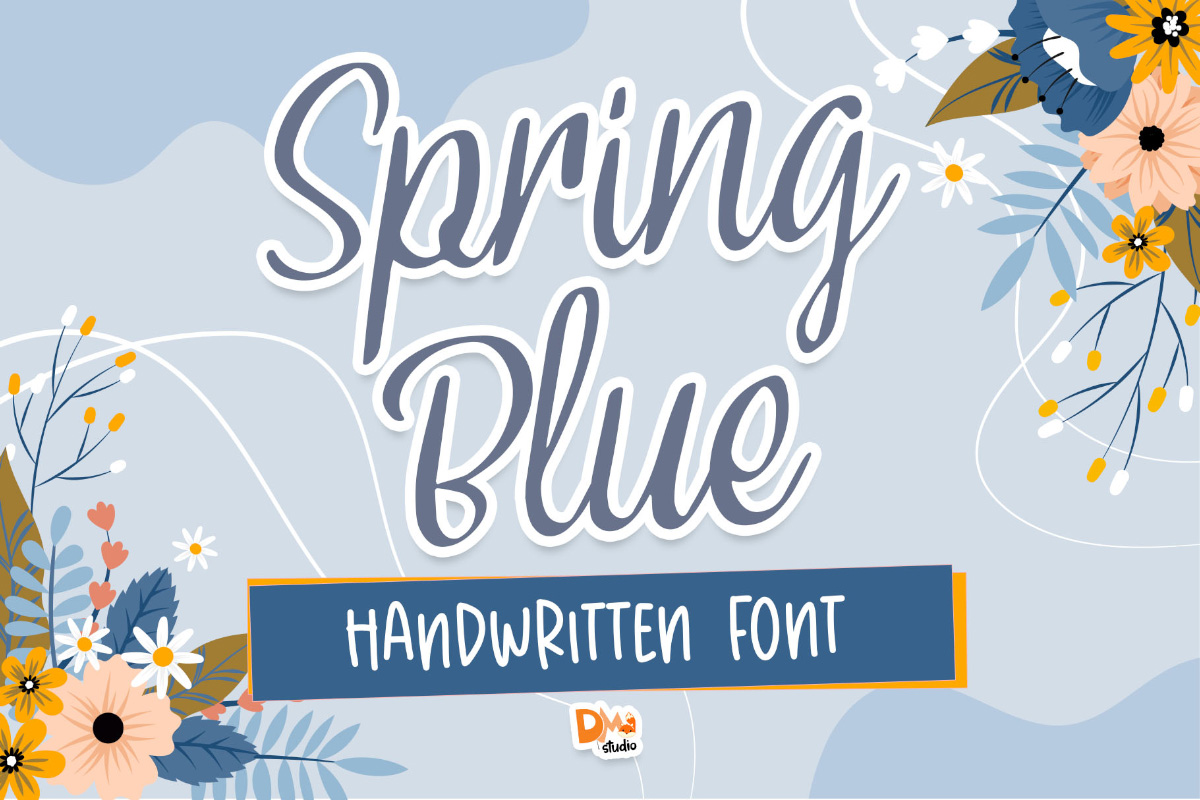
30+ Flower Font Recommendations to Enhance Your Design Projects
If you’re looking to add a touch of nature and beauty to your designs, flower fonts are a perfect choice. Therefore, in this article, we’ll share over 30 flower font recommendations that will bring a fresh and elegant look to your projects. Find each of them in the following chapter!
31 Flower Font Recommendations for Any Usages
Whether you’re designing invitations, posters, or digital artwork, these flower fonts will help you create stunning and eye-catching designs with ease. Scroll down to get inspired!
1. Flower Bee
Flower Bee Font
Flower Bee Font | Image Source : DM Letter Studio
First, there’s Flower Bee that blends floral elements with playful bees. It’s perfect for cheerful and lively designs.
2. Spring Baby
Spring Baby Font
Spring Baby Font | Image Source : DM Letter Studio
Spring Baby Font adds a gentle touch with its floral motifs and is ideal for baby shower invitations.
3. Baby Tulips
Baby Tulips Font
Baby Tulips Font | Image Source : DM Letter Studio
Featuring cute tulip designs, this font is great for spring-themed projects and children’s decor.
4. Tropic Garden
Tropic Garden Font
Tropic Garden Font | Image Source : DM Letter Studio
Another flower font that must be on the list is Tropic Garden font which brings tropical flowers to life and is a good choice for summer events and exotic design themes.
5. Pink Garden
Pink Garden Flower Font
Pink Garden Flower Font | Image Source : DM Letter Studio
Pink Garden Font offers delicate flower designs that add a feminine and romantic feel to any project.
6. Goldy Boldy
Goldy Boldy Font
Goldy Boldy Font | Image Source : DM Letter Studio
This bold font with floral accents is excellent for making headlines stand out in stylish designs.
7. Goldy Burst
Goldy Burst Font
Goldy Burst Font | Image Source : DM Letter Studio
Goldy Burst combines floral bursts with a modern look that is suitable for eye-catching advertisements.
8. Letter Magic
Letter Magic Font
Letter Magic Font | Image Source : DM Letter Studio
Letter Magic Font includes whimsical flower designs that are perfect for creative projects and artistic logos.
9. Sunday Feast
Sunday Feast Font
Sunday Feast Font | Image Source : DM Letter Studio
With elegant floral touches, Sunday Feast Font is perfect for designs for invitations and event announcements.
10. Pink Daisy
Pink Daisy Handwriting Flower Font
Pink Daisy Handwriting Flower Font | Image Source: DM Letter Studio
Pink Daisy Font features charming daisy motifs that are great for cheerful and lighthearted design projects.
11. Spring Blue
Spring Blue Font
Spring Blue Font | Image Source: DM Letter Studio
Spring Blue Font combines cool tones and flower designs for refreshing spring-themed visuals.
12. Little Daisy
Little Daisy Font
Little Daisy Font | Image Source: DM Letter Studio
Another beautiful flower font is Little Daisy Font. It is sweet and simple for children’s books and playful designs.
13. Pink Shine
Pink Shine Font
Pink Shine Font | Image Source: DM Letter Studio
Want to add a touch of contemporary flair to any design? Pink Shine Font sparkles with high contrast letter strokes can do it.
14. Garden Flower
Garden Flower Cute Font
Garden Flower Cute Font | Image Source: DM Letter Studio
Garden Flower Cute Floral Font brings the beauty of a blooming garden to your text for natural themes.
15. Love Days
Love Days Flower Font
Love Days Flower Font | Image Source: DM Letter Studio
Looking for cute fonts for wedding invitations and love letters? Love Days Decorative font that features romantic floral elements is an ideal pair for these two occasions.
16. White Daisy
White Daisy handwritten font
White Daisy handwritten font | Image Source: DM Letter Studio
Consider White Daisy font which offers a clean and fresh look with simple daisy designs to embellish your minimalist theme design with a touch of contemporary elegance.
17. Heart Love
Heart Love – Lovely Font Duo
Heart Love – Lovely Font Duo | Image Source: DM Letter Studio
This heart love font combines hearts and flowers with eccentric letter shapes, making it perfect for Valentine’s Day designs.
18. Sakura Blossom
Sakura Blossom – Lovely Handwritten Font
Sakura Blossom – Lovely Handwritten Font | Image Source: DM Letter Studio
Another flower letters font that you can’t miss is the Sakura Blossom font. This handwrittent font brings a simple beauty of cherry blossoms for elegant and serene designs.
19. Blush Lovely